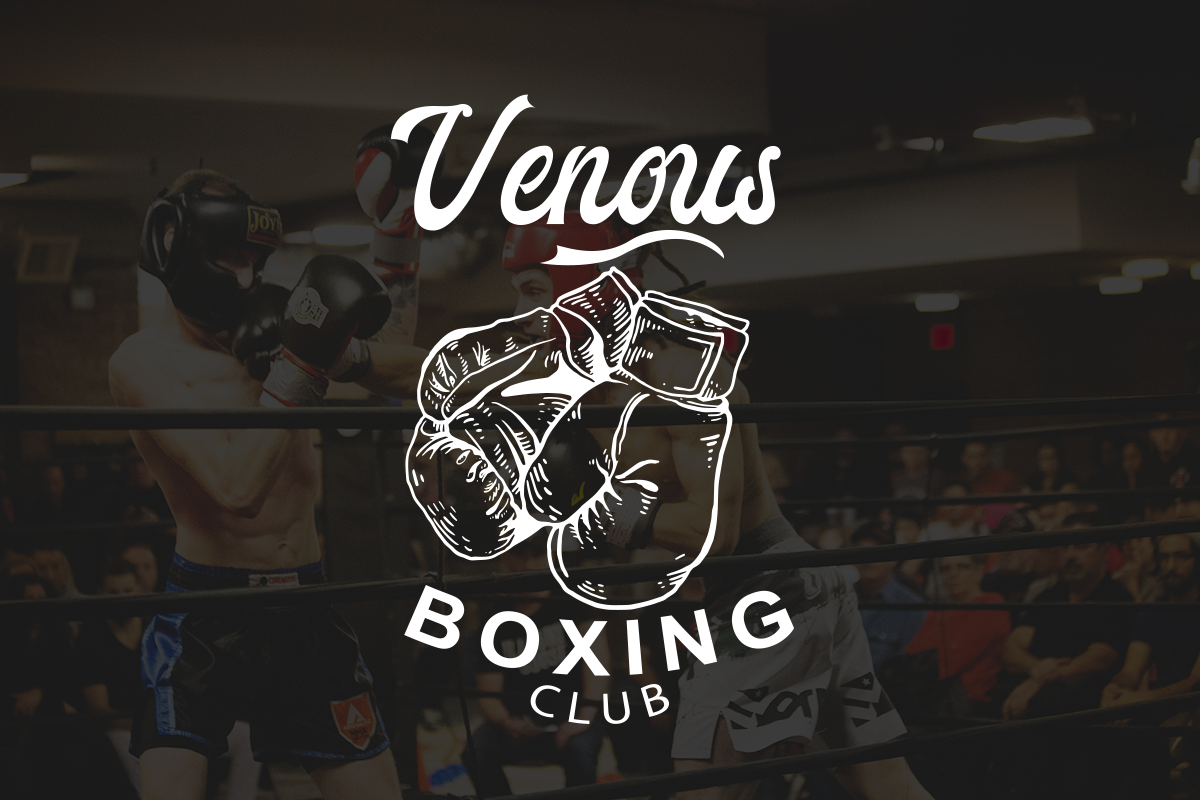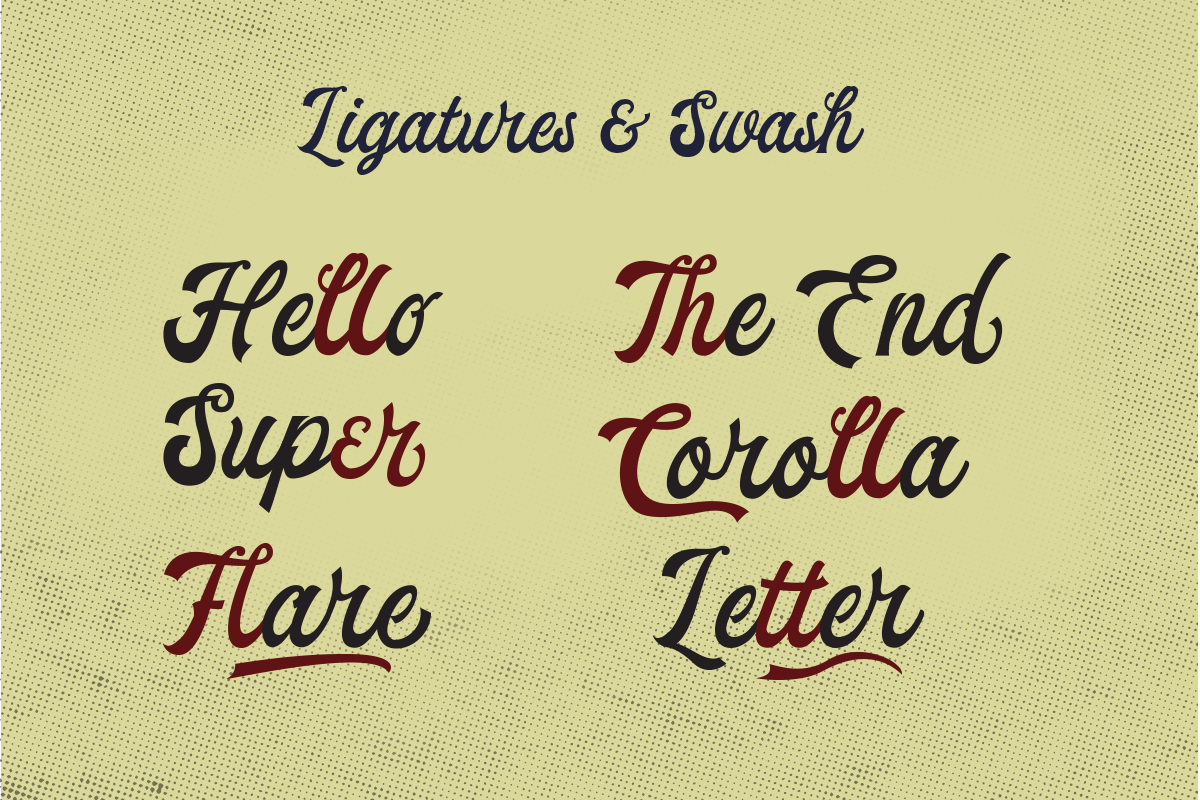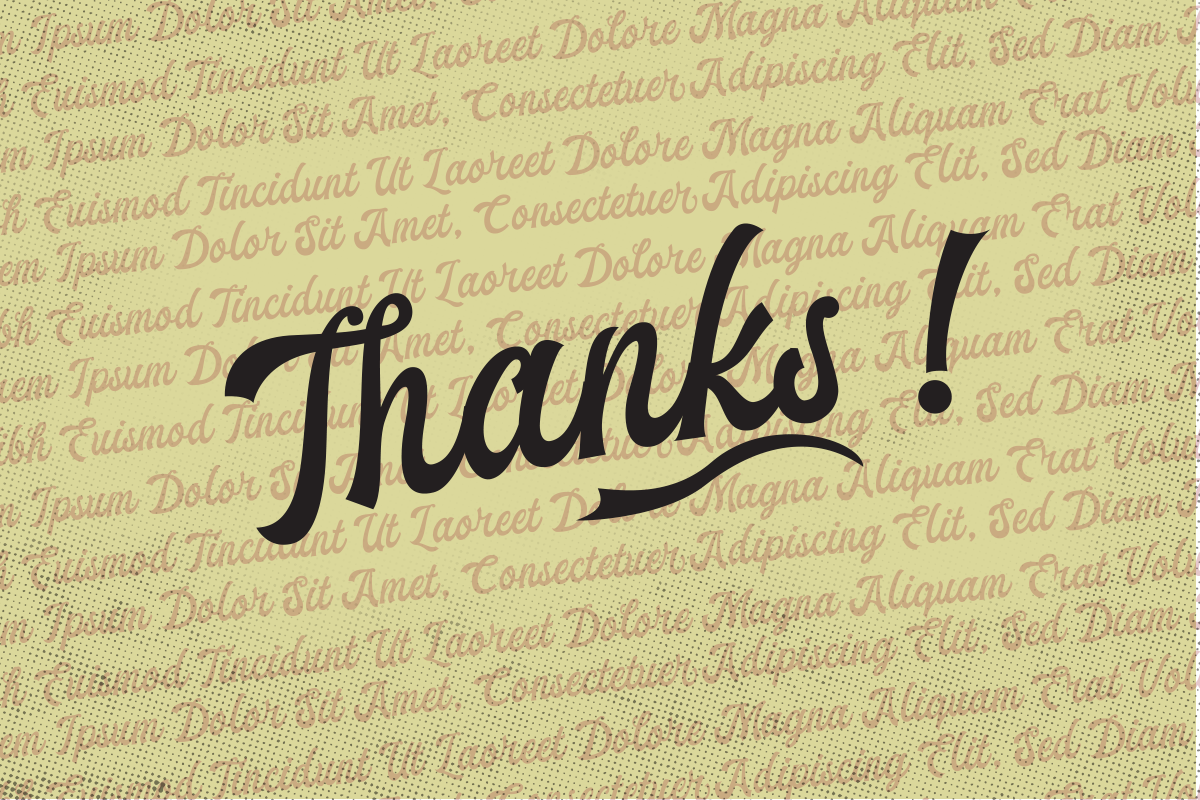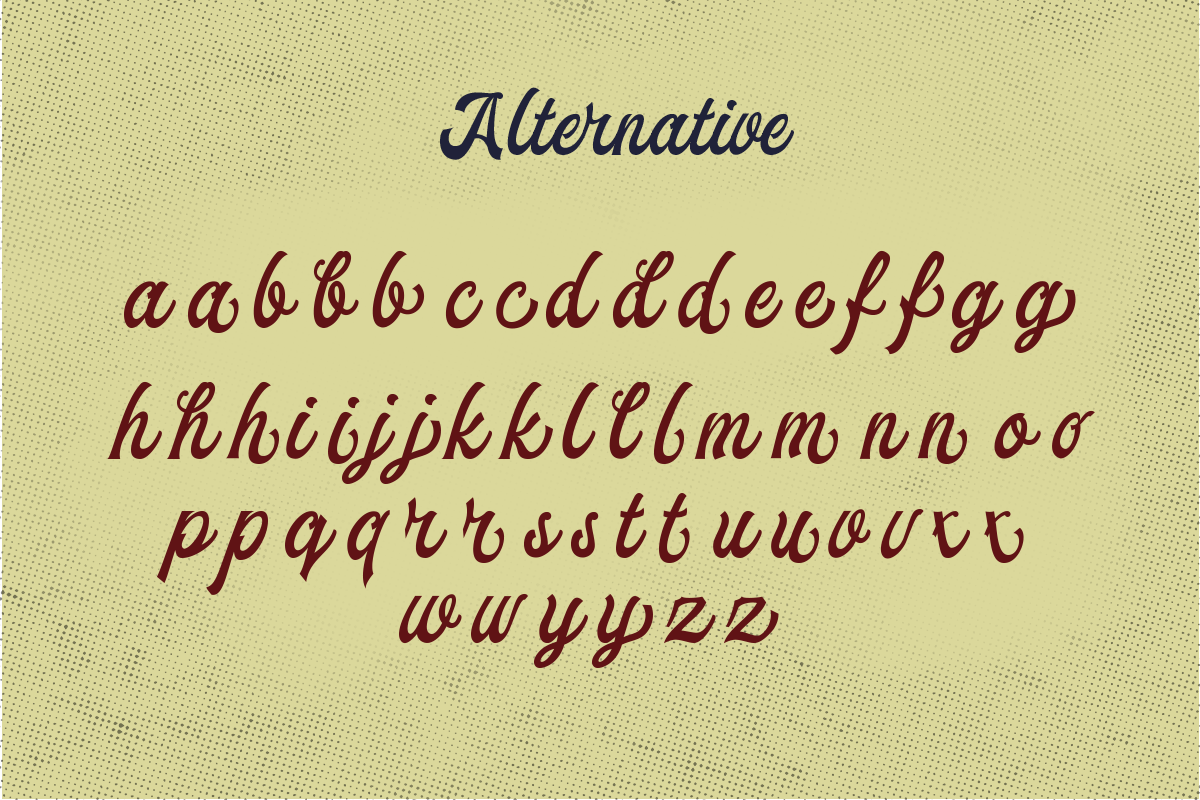
Ekshada Script + BONUS ! (UPDATED)
Introducing
Ekshada Script is a handcrafted script, inspired by vintage posters and logo. This script typeface gives a feel of classic, vintage, and clear style looked like. Also comes with uppercase, lowercase, numerals, multilinguals set, opentype alternates, ligatures, some swash, and FREE illustrations to customize your designs.
Perfect to use for Logotype, Apparel Design, Poster, Label, Letterhead, and etc.